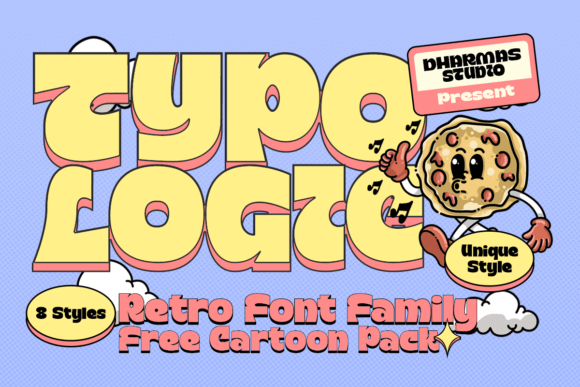
Step into a world of boundless creativity with Typologic, the font family that captures the essence of the swinging 60s and groovy 70s. Each of the 8 distinct font families, including Condensed, Normal, Semi Expanded, and their stylish shadow counterparts, will ignite your imagination and elevate your designs to new heights.
Dive into a treasure trove of endless possibilities as Typologic empowers you to create memorable logotypes that leave a lasting impression, eye-catching headlines that demand attention, inviting signage that captivates passersby, stylish apparel that exudes personality, chic invitations that set the tone for unforgettable events, captivating posters that ignite conversations, heartwarming greeting cards that touch hearts, charming packaging that adds a touch of elegance, captivating book covers that invite readers into a world of stories, inspiring printed quotes that motivate and uplift, striking album art that resonates with music lovers, and cinematic movie titles that set the stage for epic storytelling.
With Typologic, you'll discover a world where creativity flows effortlessly, where your designs come to life with vibrant energy and captivating charm. Embrace the spirit of the 60s and 70s and let Typologic guide you on a journey of limitless creativity and design excellence.